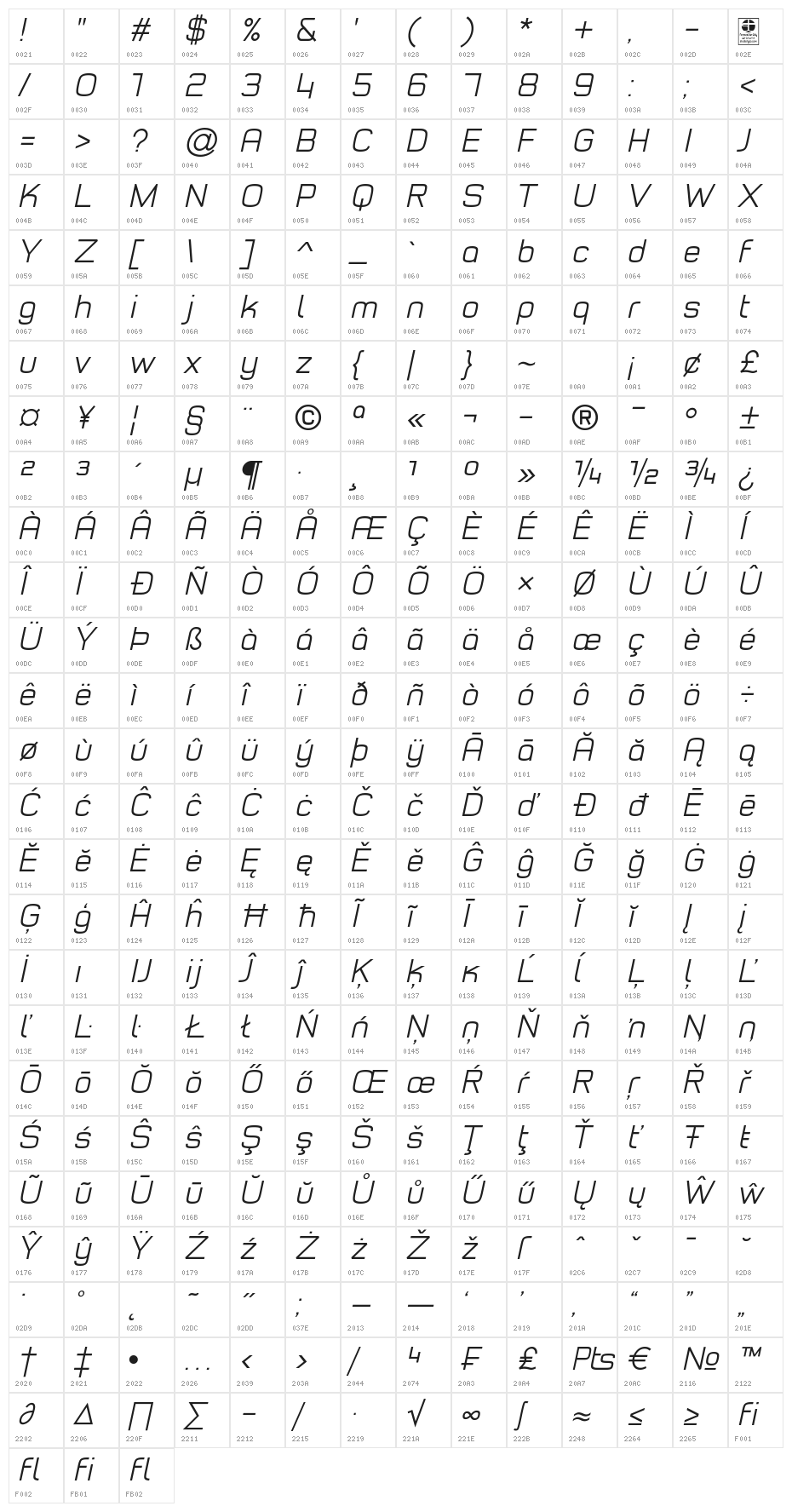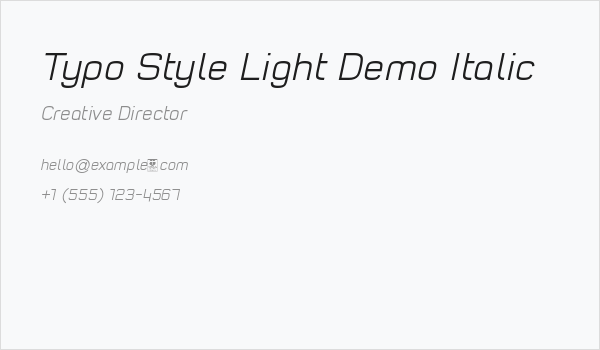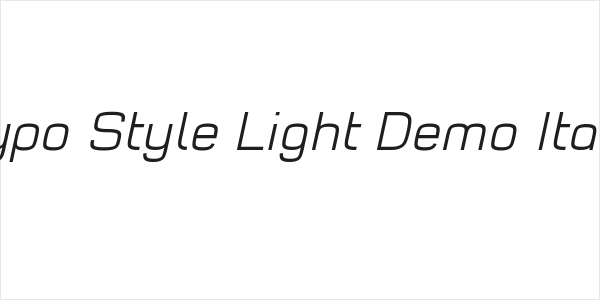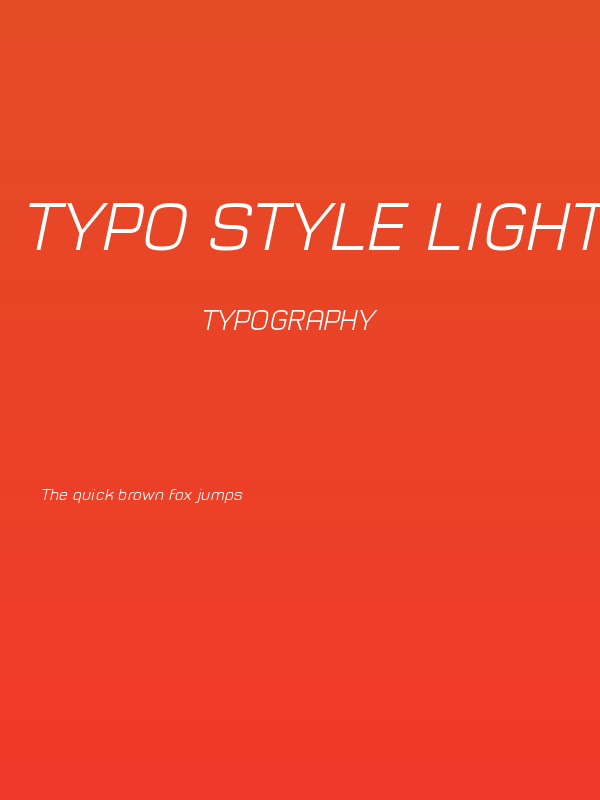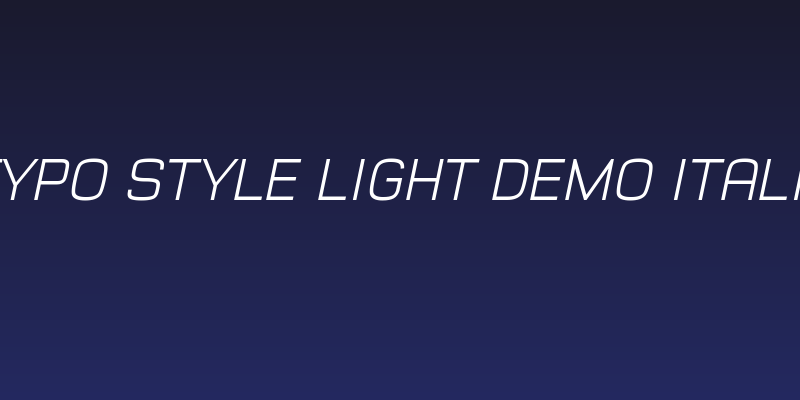
Typo Style Light Demo Italic Font
Typo Style Light Demo Italic Description
This font features a sleek, modern design with a light weight and italic style. The characters are slightly elongated, giving it a sophisticated and contemporary look. The sans-serif design ensures clean lines and a minimalist aesthetic, making it versatile for various applications. The uppercase and lowercase letters maintain a consistent style, with smooth curves and a slight slant that enhances readability. Numbers and special characters are designed to match the overall style, ensuring uniformity across all text elements. The font's light weight and italic nature make it ideal for projects that require a touch of elegance and modernity.
| Proposed Projects | Ideal for branding, modern web design, fashion magazines, and elegant invitations. |